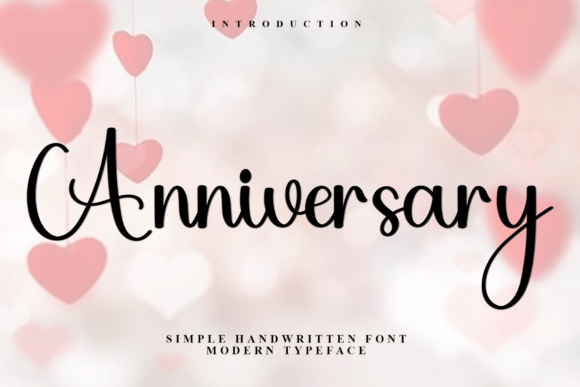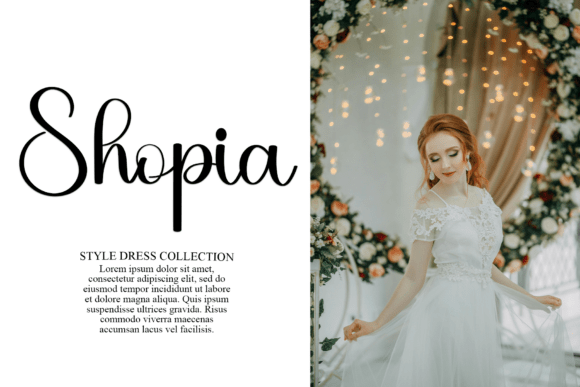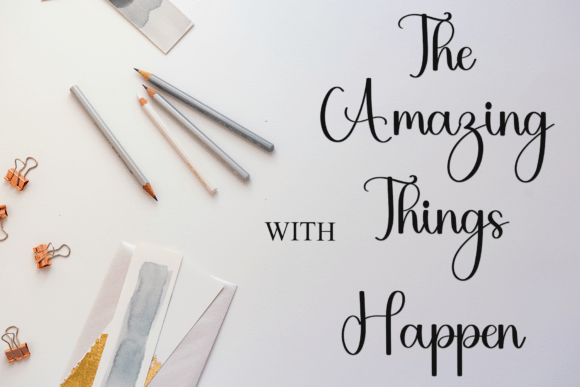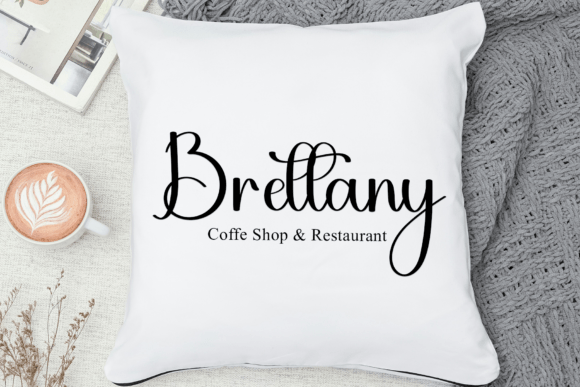
Anniversary Font: Elegant Handwritten Script for Wedding & Branding!
About the Anniversary Font
Crafted with precision, the Anniversary Font is ready to bring your ideas to life. Anniversary is a lovely and timeless handwritten font. It is the best choice for creating eye catching logos, branding and quotes. Every letter has a unique and beautiful touch, which will make your design come alive!
Anniversary’s elegant, handwritten style is ideal for logos, branding materials, short quotes, and invitations where a touch of personal warmth is desired. It excels in creating a sense of occasion and works particularly well for projects related to weddings, anniversaries, or luxury goods. However, its intricate details make it unsuitable for body text or UI elements where readability is paramount. Avoid using it in lengthy paragraphs or small sizes.
For optimal visual balance, pair Anniversary with a clean sans-serif like Lato or Open Sans for body copy or supporting text. A classic serif like Garamond or a more modern geometric sans-serif such as Montserrat can also provide a sophisticated contrast, depending on the desired aesthetic.
The font’s overall personality is sophisticated and romantic, conveying a sense of timeless charm and personal connection. It’s best suited for brands that prioritize quality, craftsmanship, and a touch of classic elegance.